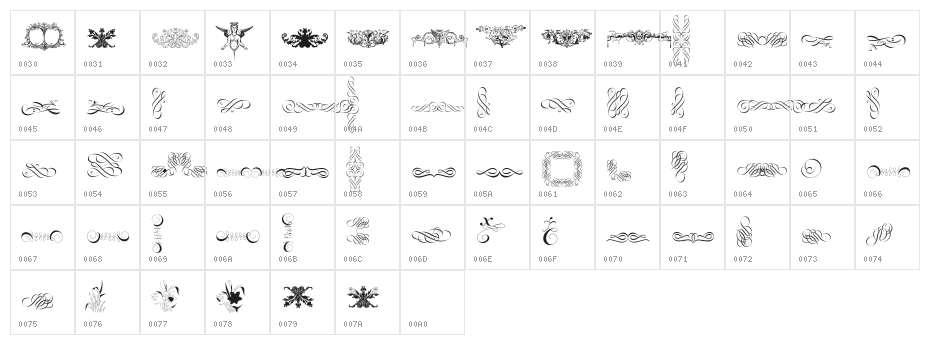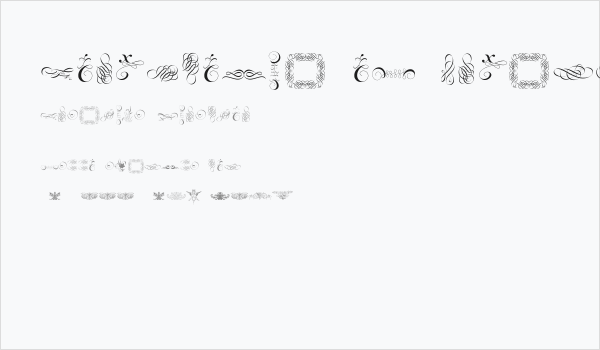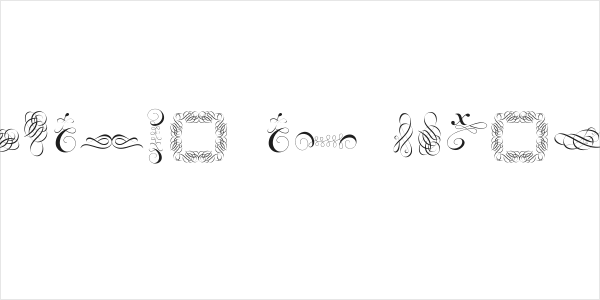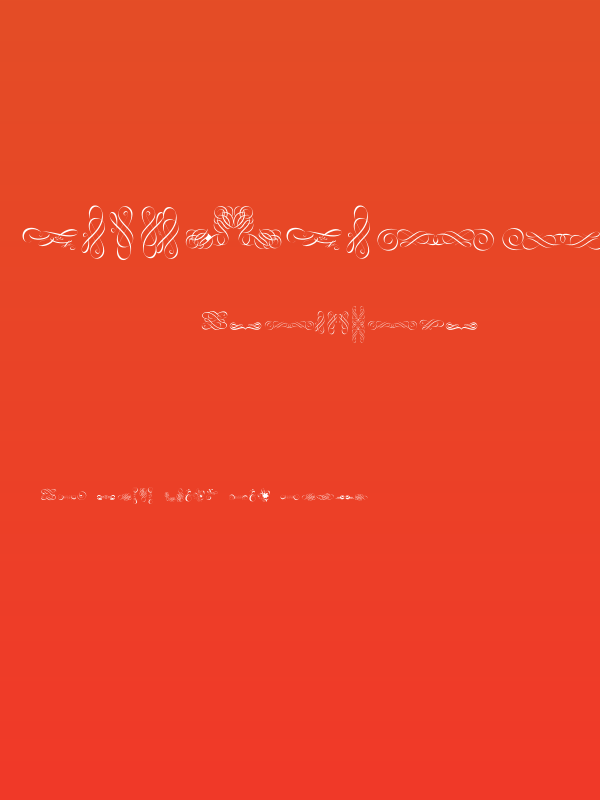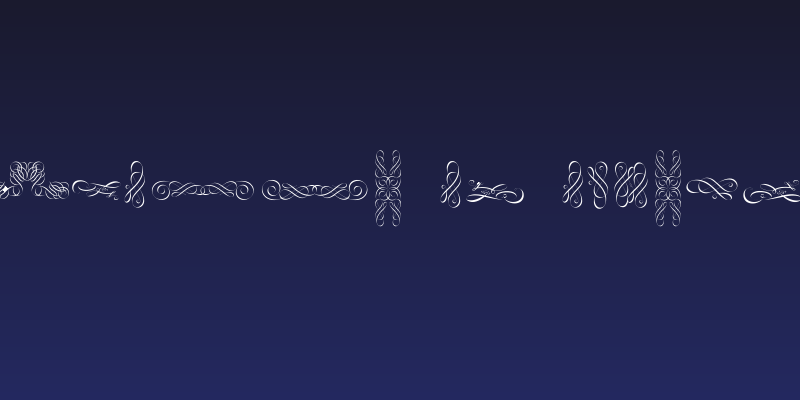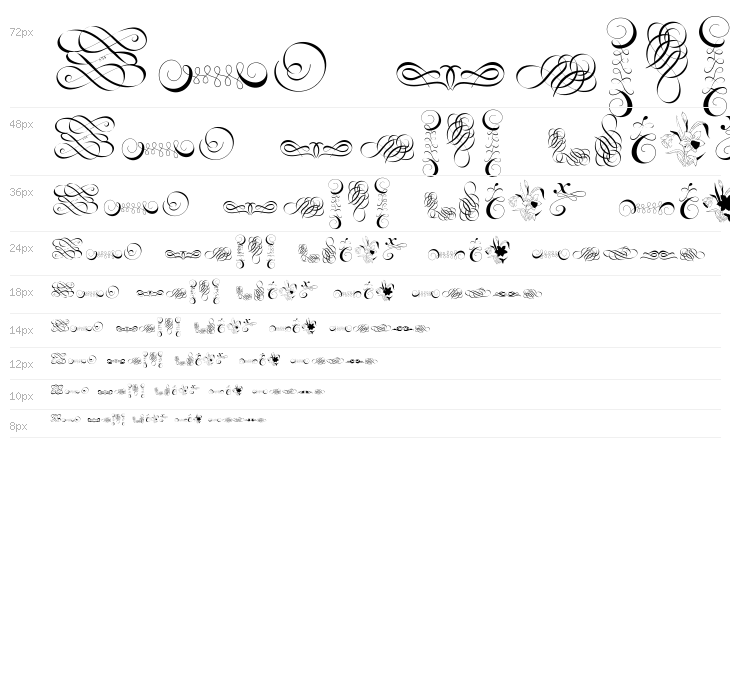
Cornucopia of Ornaments Font
Cornucopia of Ornaments Description
This collection of ornamental designs features an array of intricate and decorative elements, each with a unique flourish and elaborate detailing. The designs range from symmetrical patterns to floral motifs, showcasing a variety of artistic styles. The elements are characterized by their elegant curves, loops, and swirls, often incorporating floral and botanical themes. These ornaments are ideal for adding a touch of sophistication and elegance to any project, with their intricate lines and detailed craftsmanship. The collection offers a diverse selection of embellishments that can be used to enhance visual appeal in various design contexts.